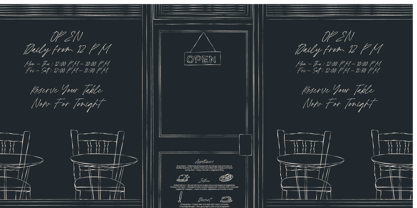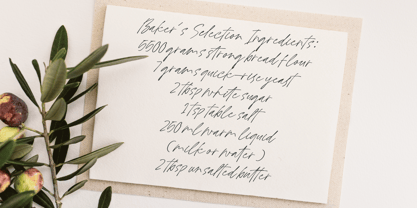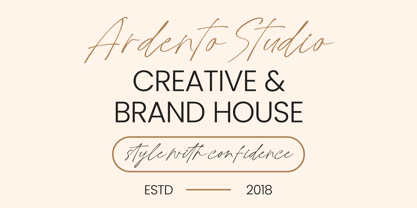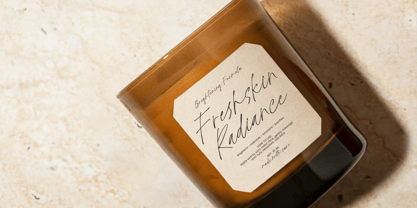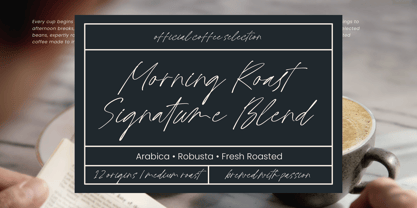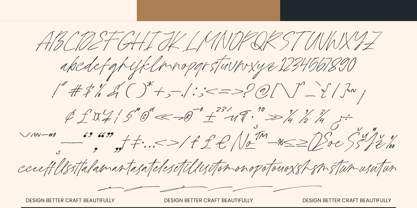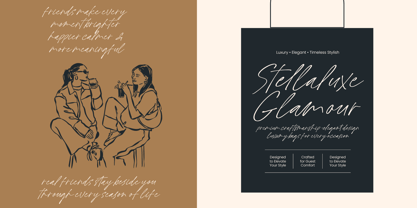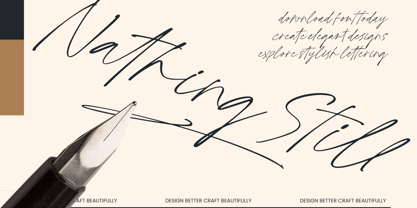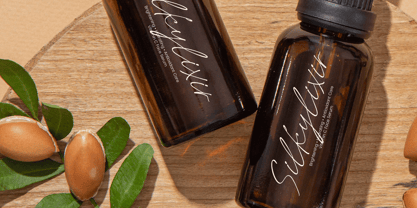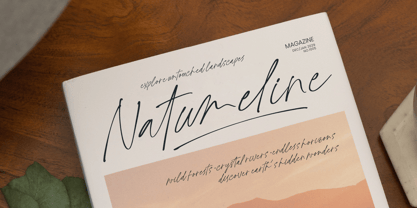
Nathing Still
by Letterena Studios
The Nathing Still Font Family was designed by Heru Utama Putra and published by Letterena Studios. Nathing Still contains 2 styles and family package options. More about this family
Nathing Still - Stylish Calligraphy
Elevate your creative vision with the timeless elegance of Nathing Still - Stylish Calligraphy, a font designed to bring a touch of sophisticated artistry to every project. This premium script typeface captures the rhythmic beauty of handwritten ink, offering a fluid movement that feels both organic and high-end. Its delicate strokes and graceful transitions make it an essential tool for designers seeking to convey exclusivity and refined taste.